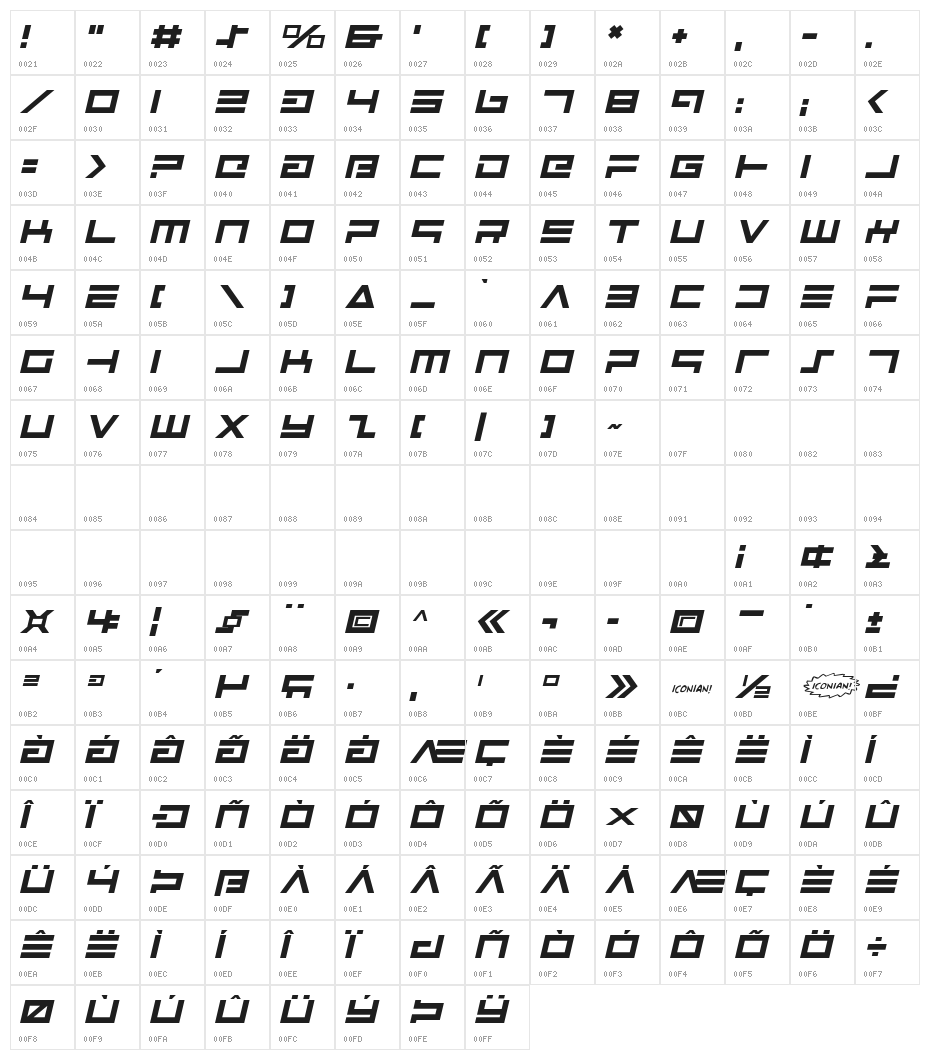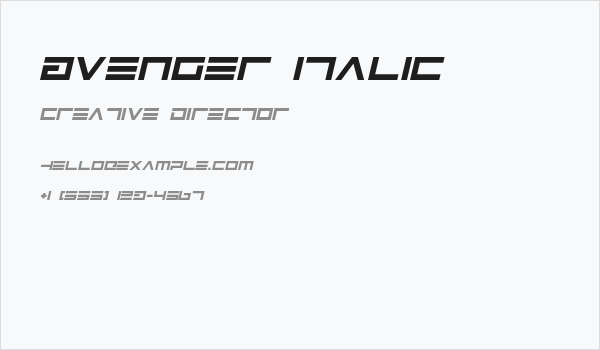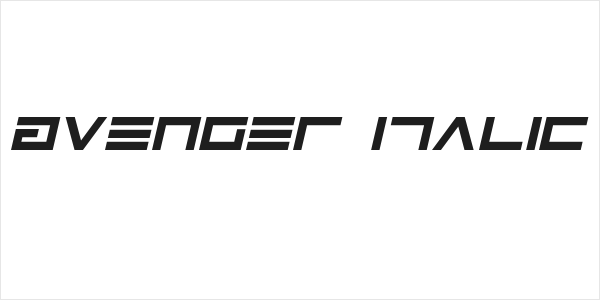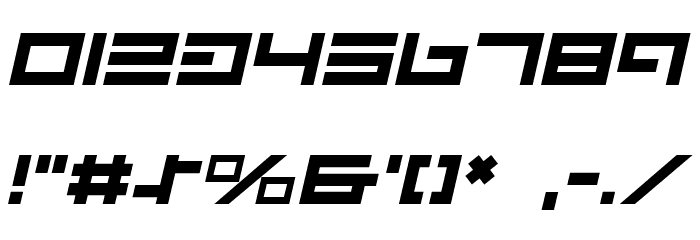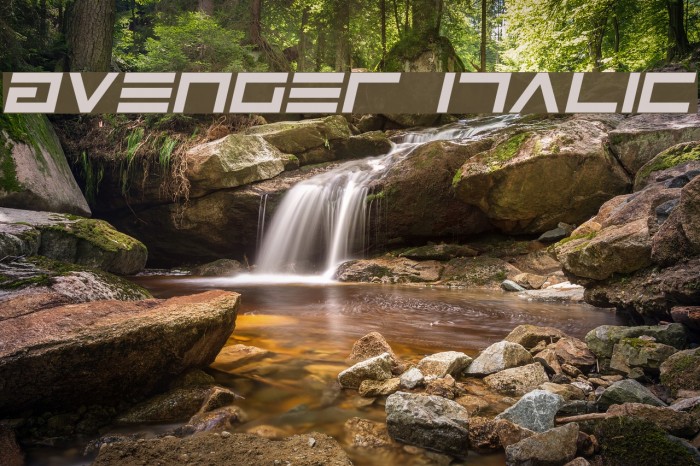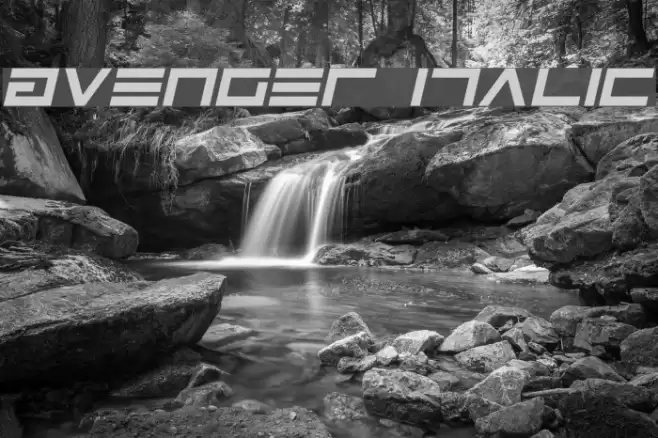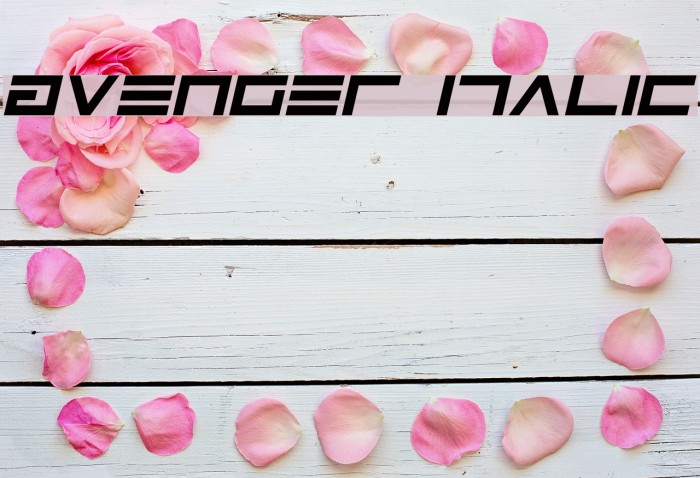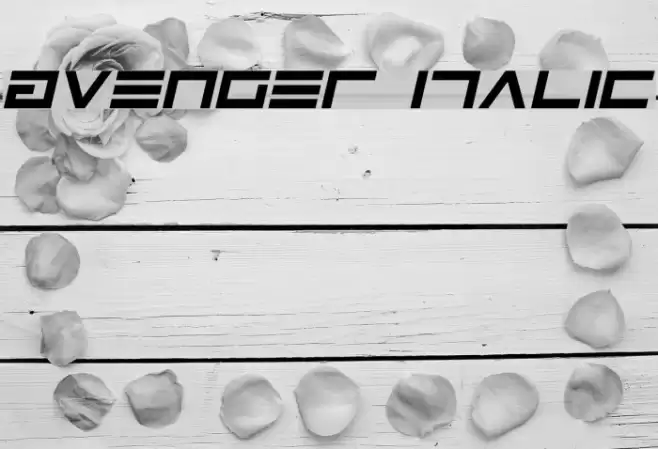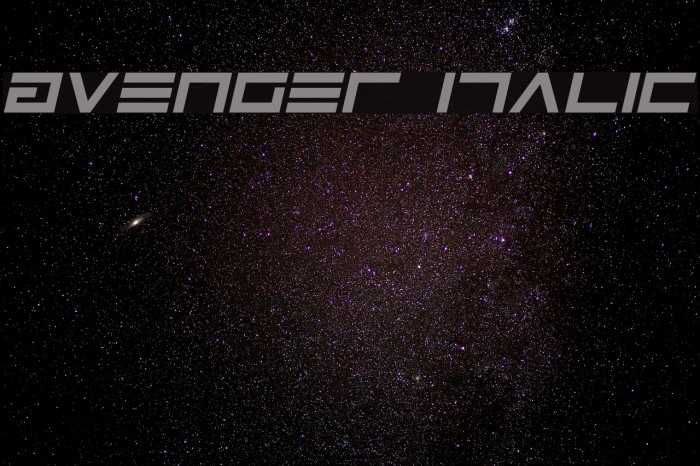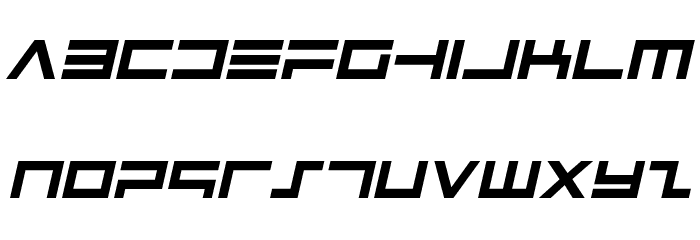
Avenger Italic Font
Avenger Italic Description
This font features a bold, futuristic design with sharp angles and a distinct italic slant, giving it a dynamic and energetic appearance. The characters are constructed with a geometric precision, emphasizing a modern and sleek aesthetic. The uppercase and lowercase letters maintain a consistent style, with a slight variation in size and form to distinguish them. Numbers and special characters are designed to match the overall theme, ensuring uniformity across all elements. The font's unique style makes it suitable for projects that require a strong, impactful visual presence.
| Proposed Projects | Ideal for sci-fi themed projects, video game titles, movie posters, and branding that requires a modern, dynamic look. |